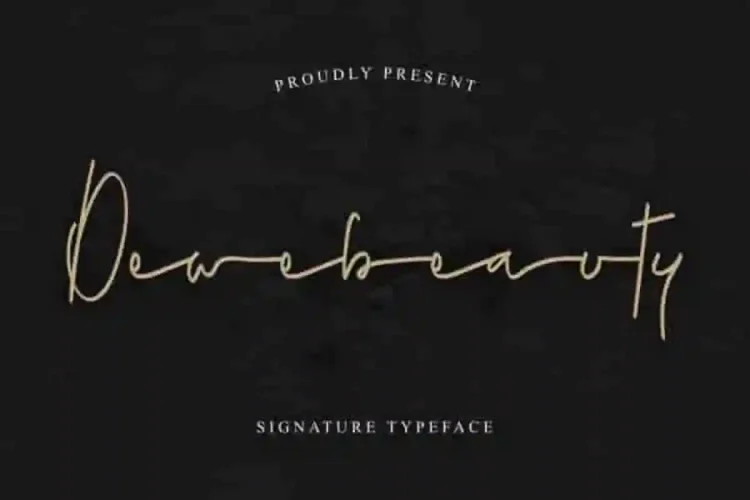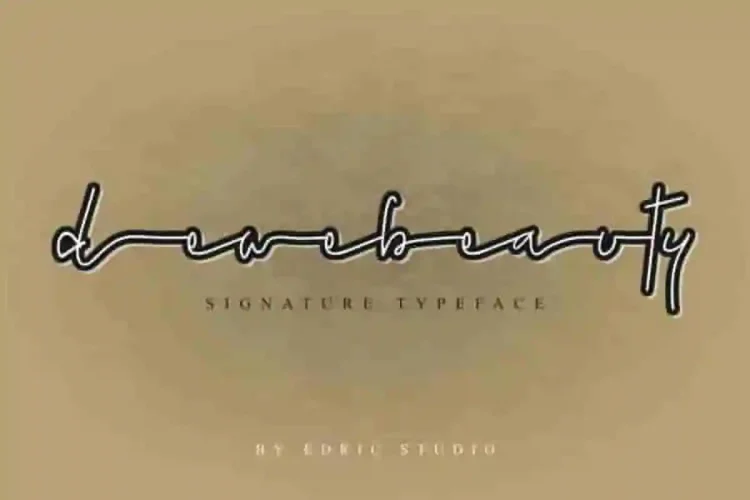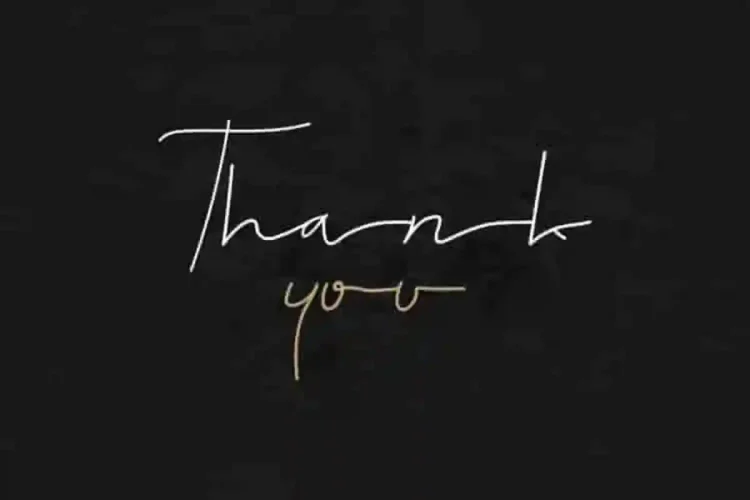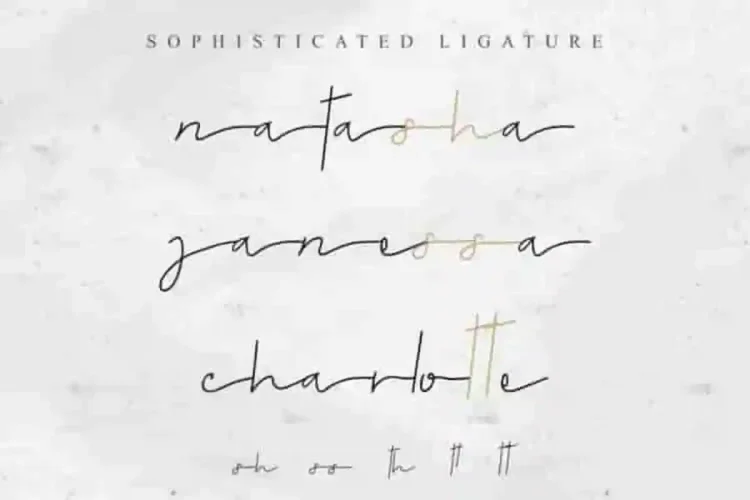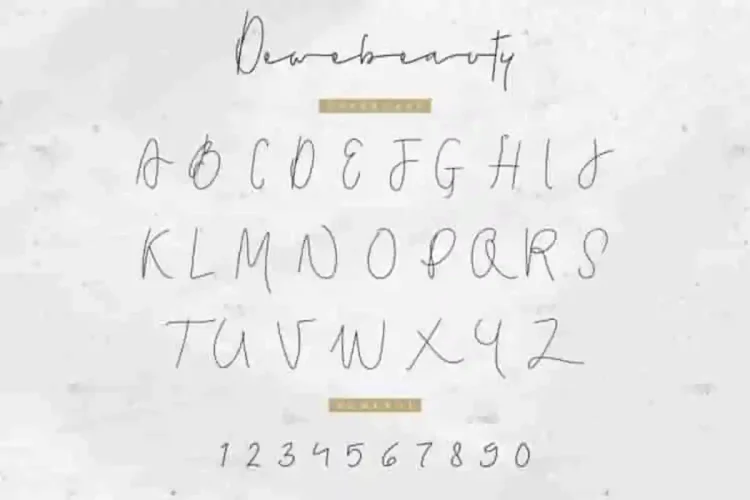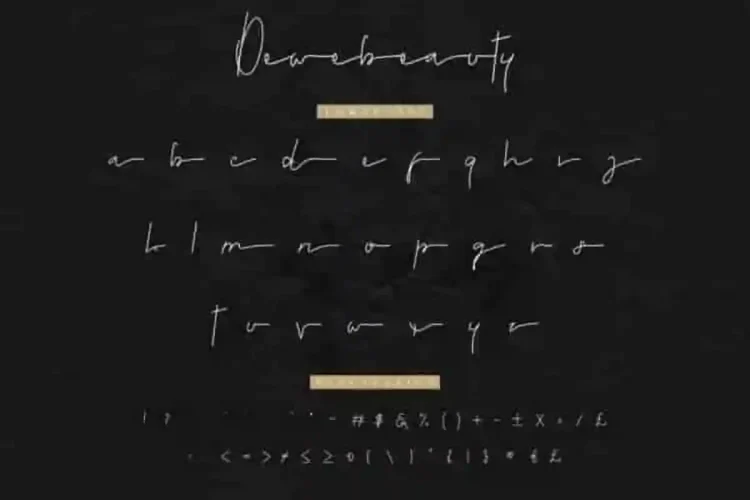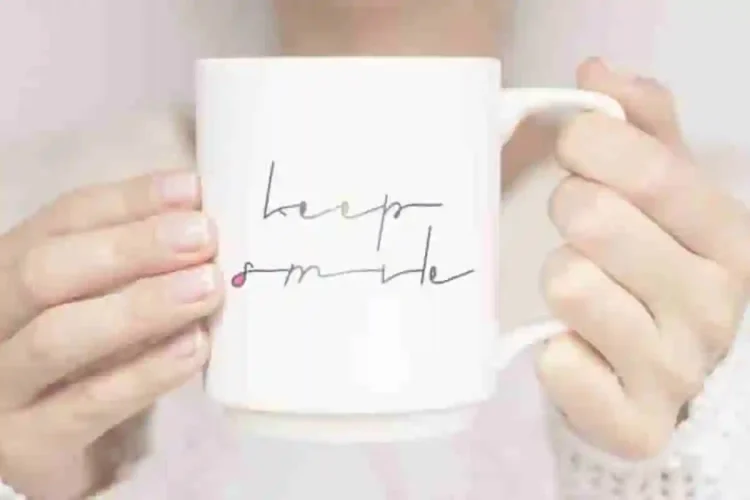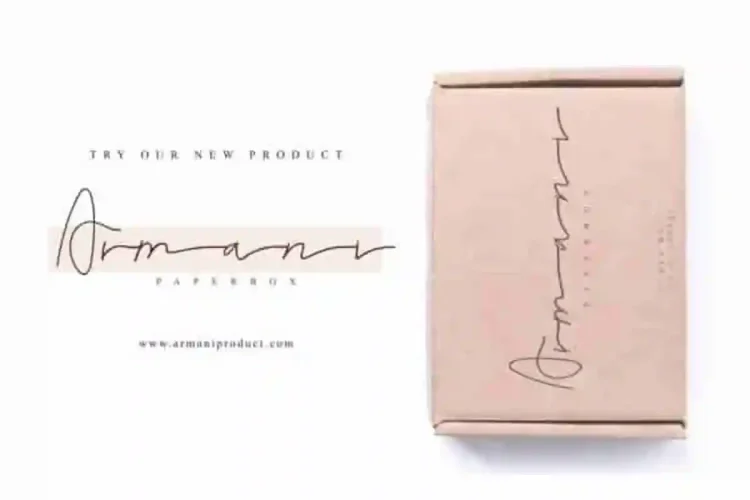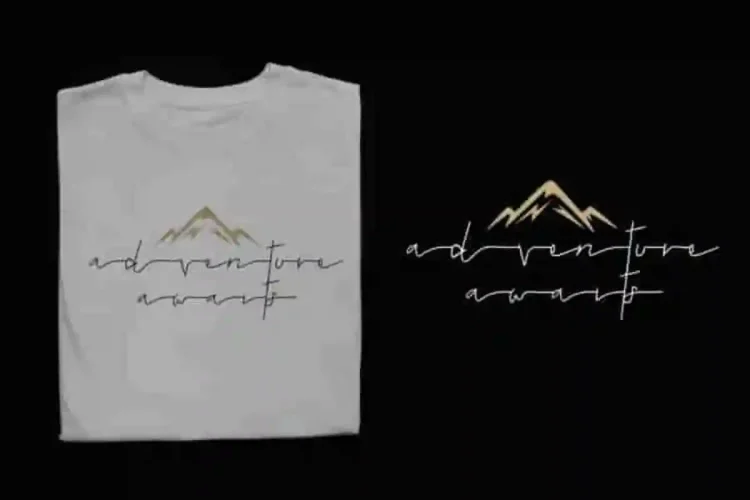
Dewebeauty Signature Font
Please meet our newest font : Dewebeauty Signature Font
Today EdricStudio present to you Dewebeauty Signature Font. This is a handwritten font with signature style. Perfectly crafted from our studio in Bandung and Garut. Made by typeface designers : Saila and Sarah
Dewebeauty Signature Font has an exclusive elegant signature style and script. With this font you can explore many industries and designs categories : Dentist, lawyer, designer, florist, wedding organizer, makeup, architect.